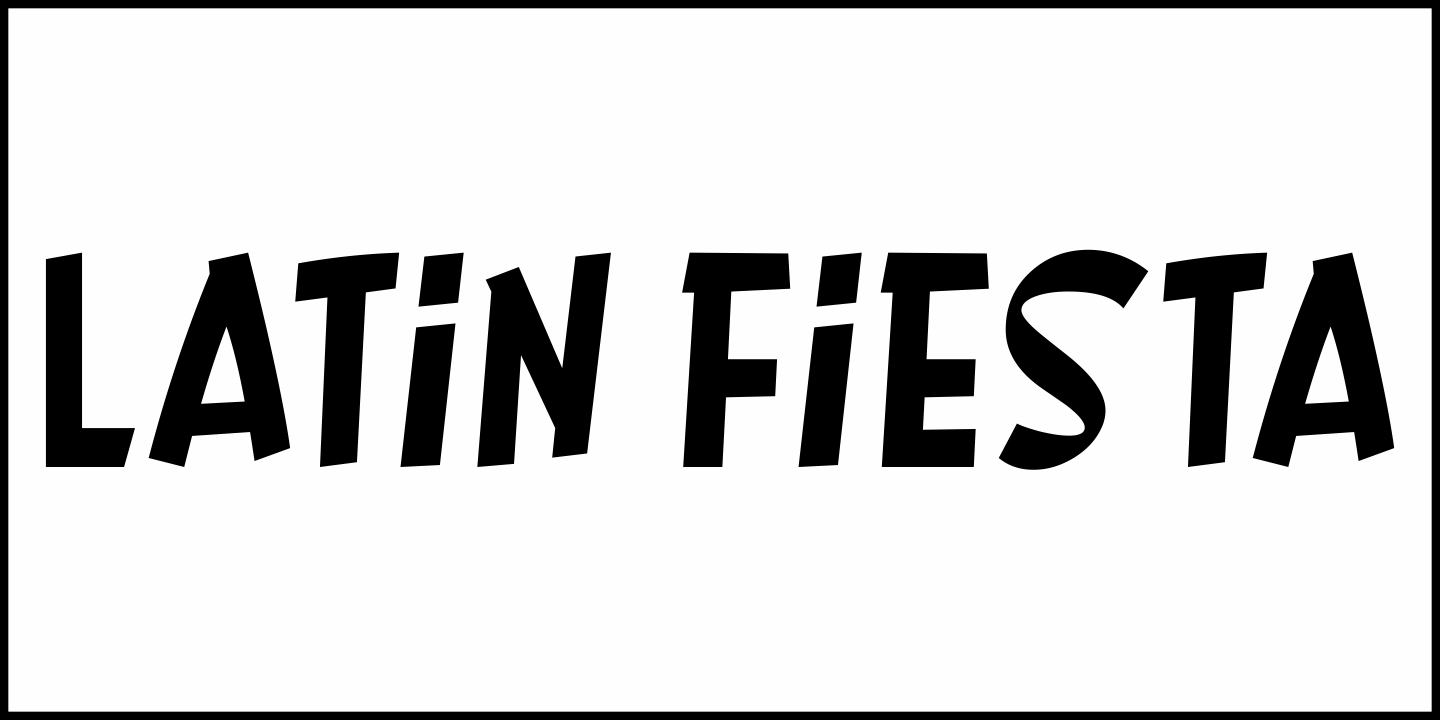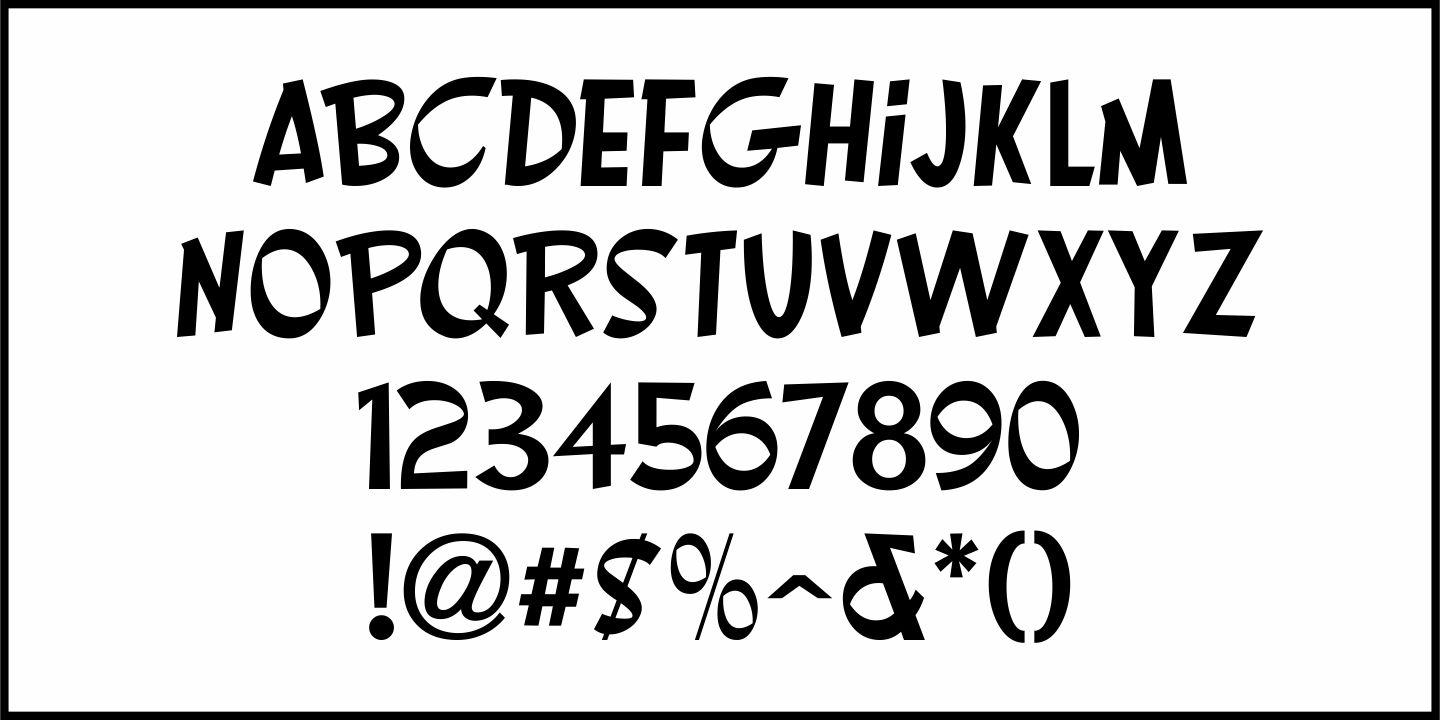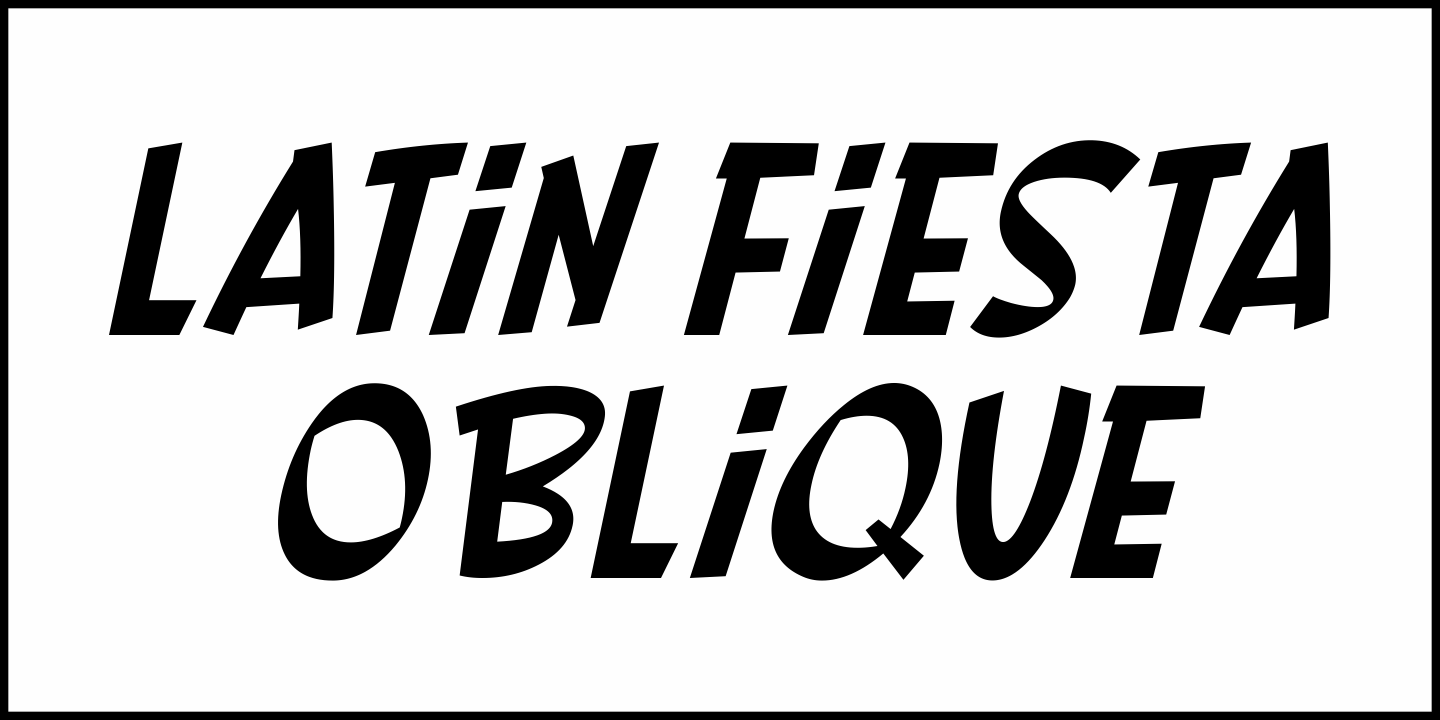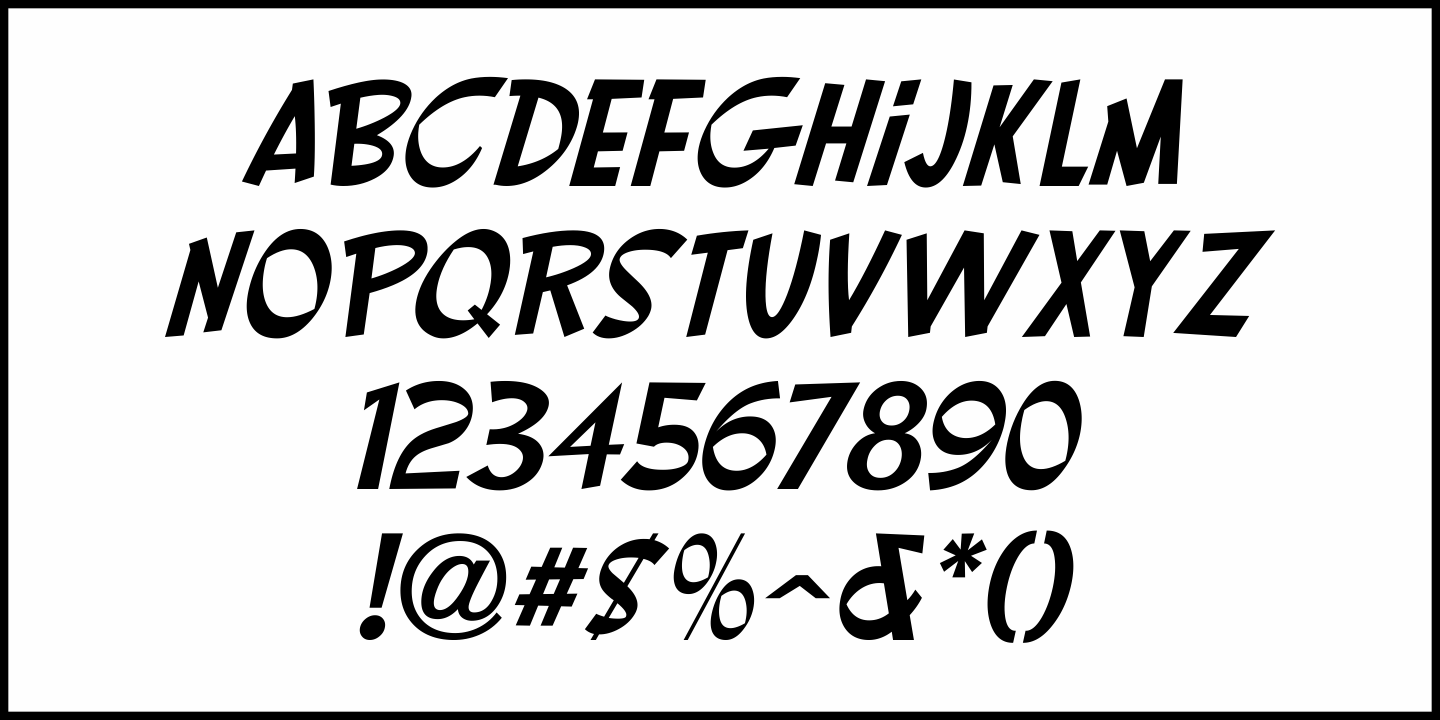
Latin Fiesta
The playful, casual hand lettering on the 1941 movie poster for 'Blondie Goes Latin” inspired Latin Fiesta JNL which is available in both regular and oblique versions.